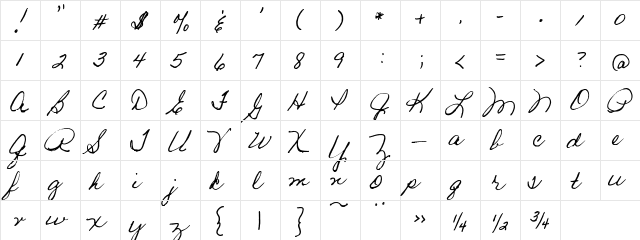
Cathie's Hand Regular Font Preview
Cathie's Hand Regular
Design Context for Cathie's Hand Typeface
Cathie's Hand flows with the natural rhythm of handwritten lettering, making it ideal for designs that call for warmth and personal expression.
Font Pairing: Combine Cathie's Hand with a simple geometric sans for maximum contrast — the tension between flowing curves and clean structure is a classic typographic pairing.
Pro Tip: Use Cathie's Hand for short runs of text — names, titles, or taglines. Extended body copy in script faces tires the eye quickly.